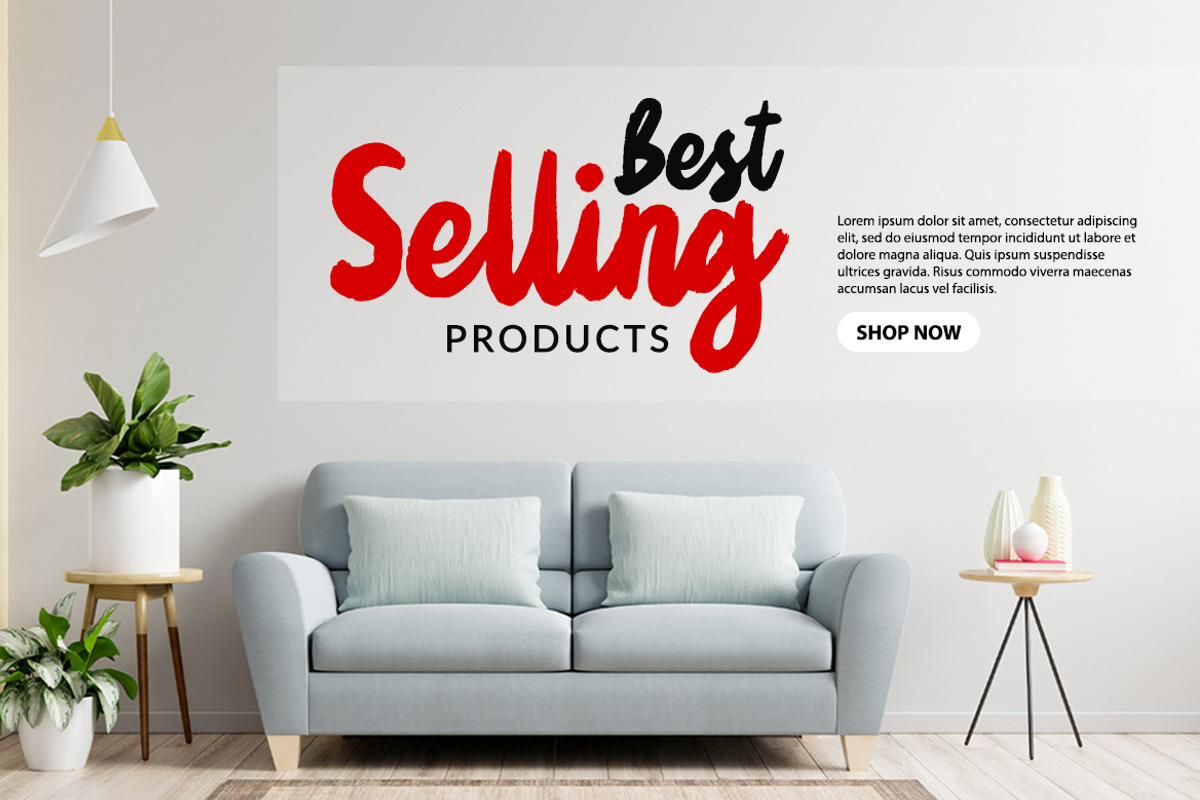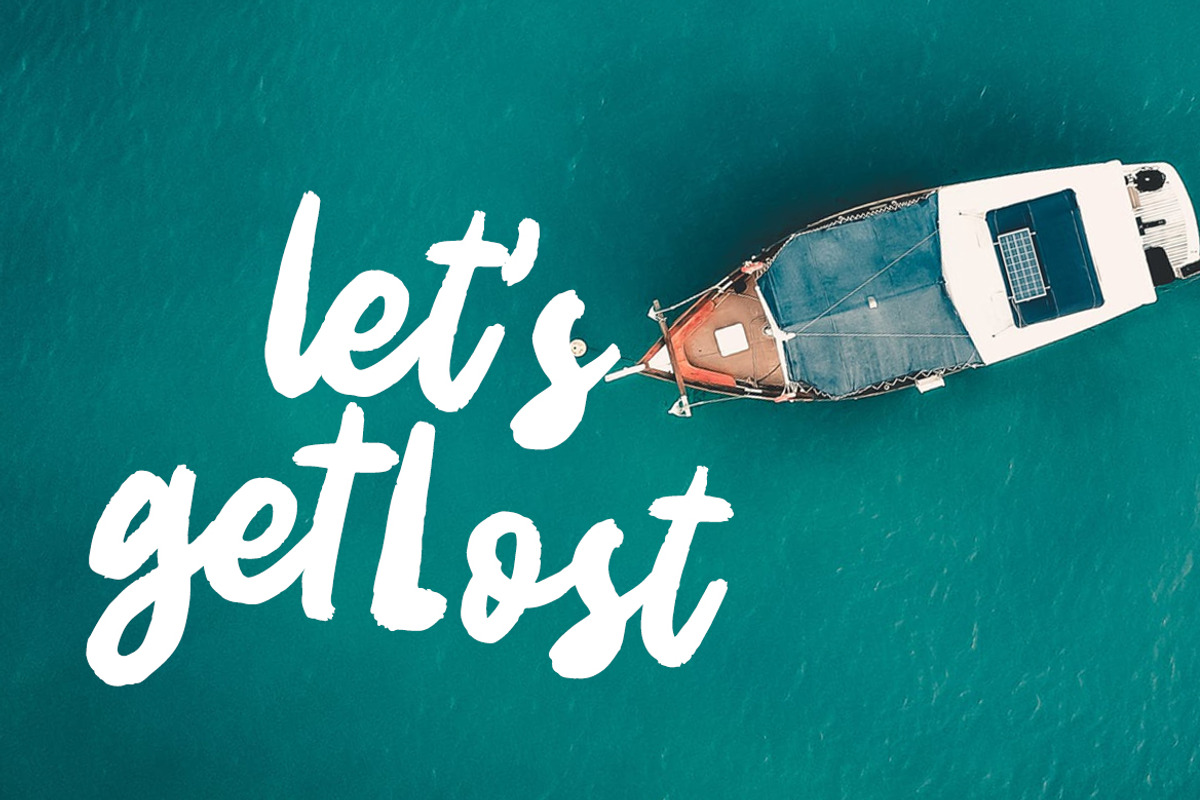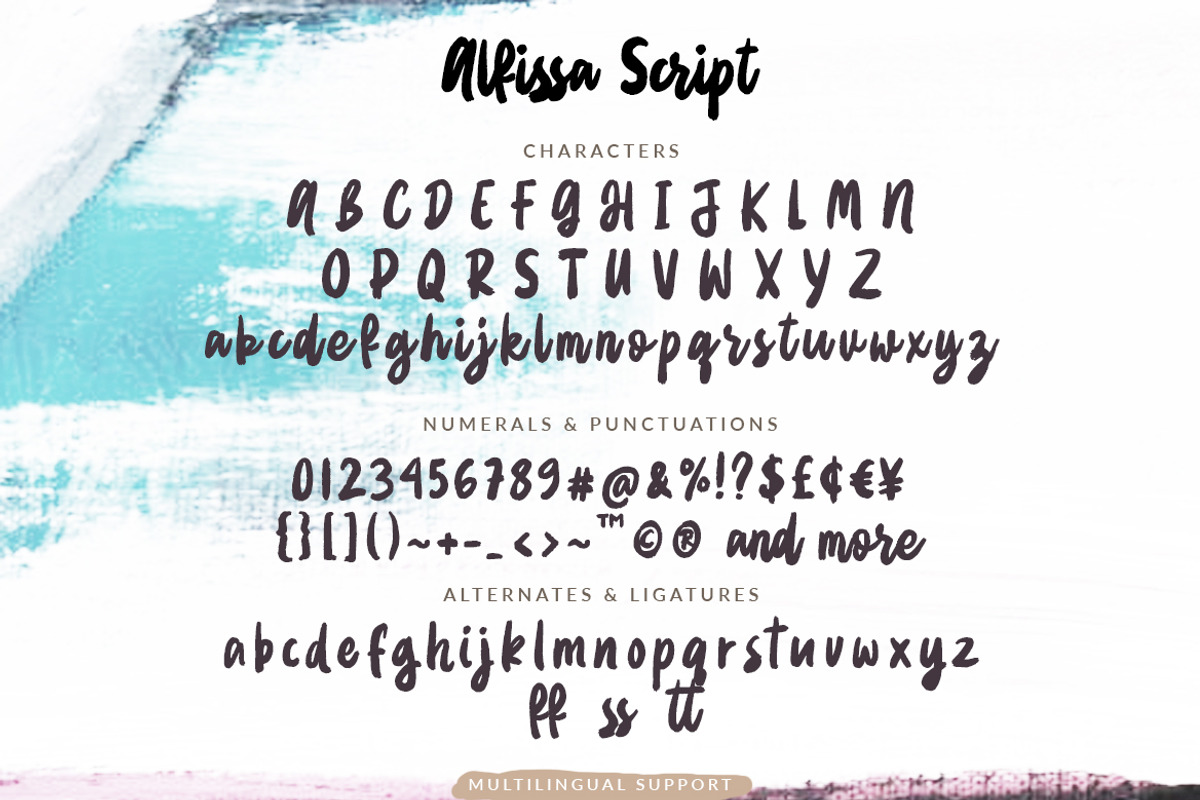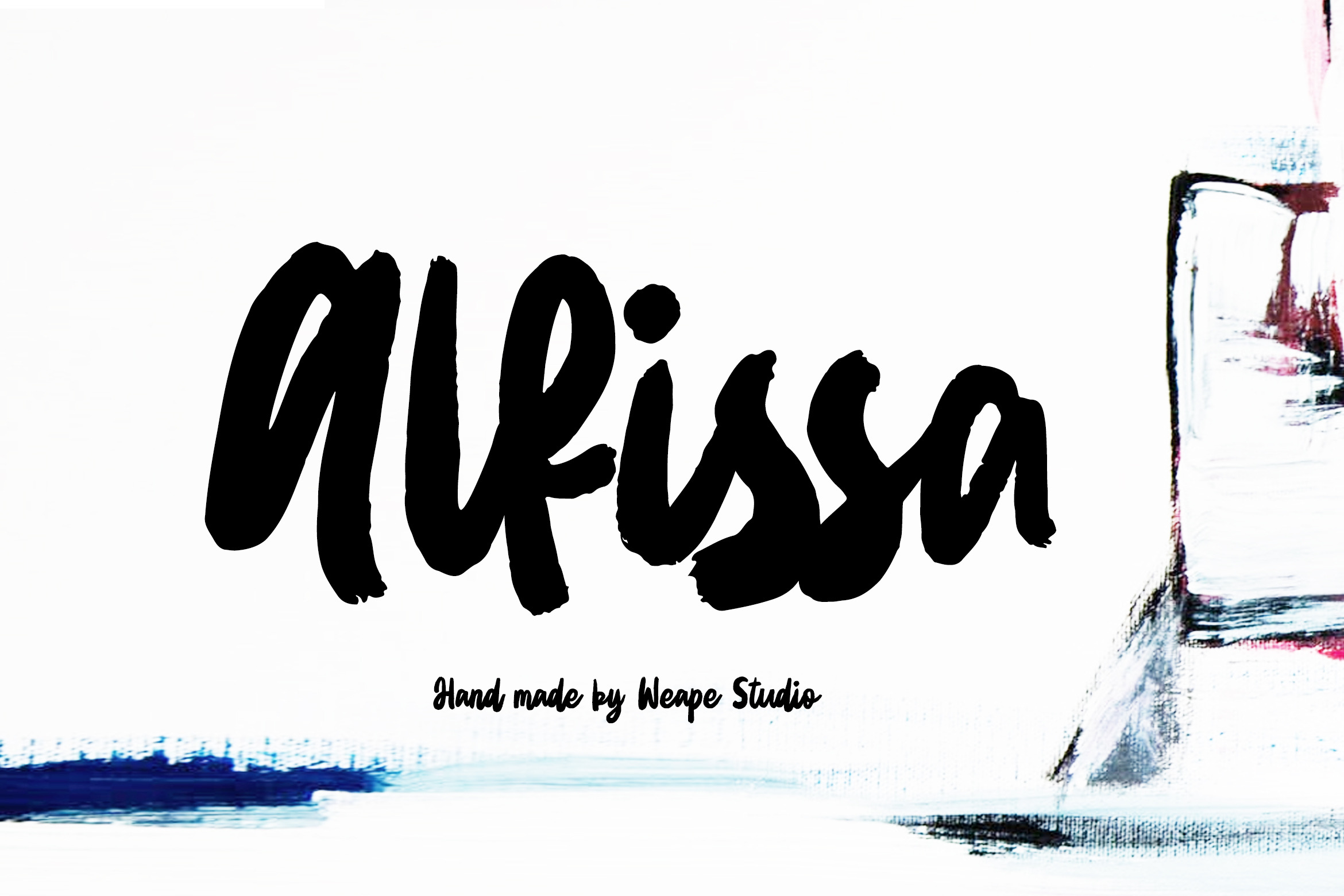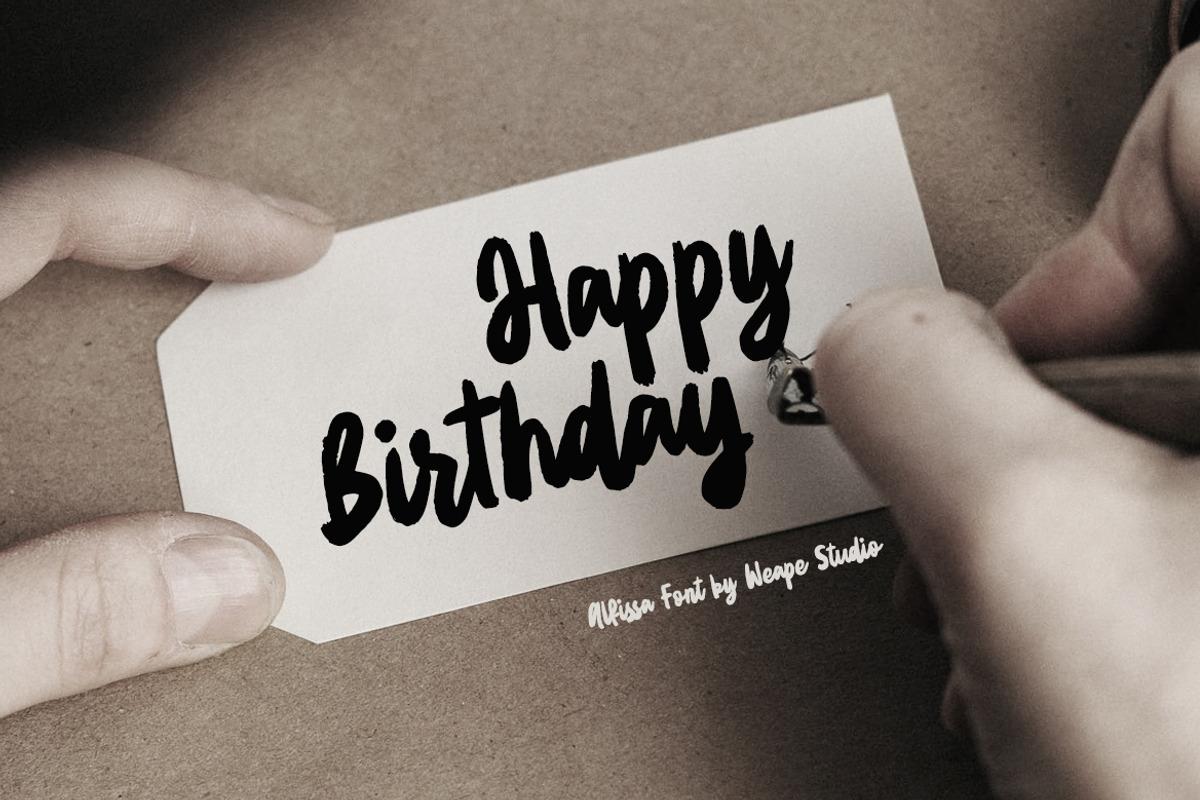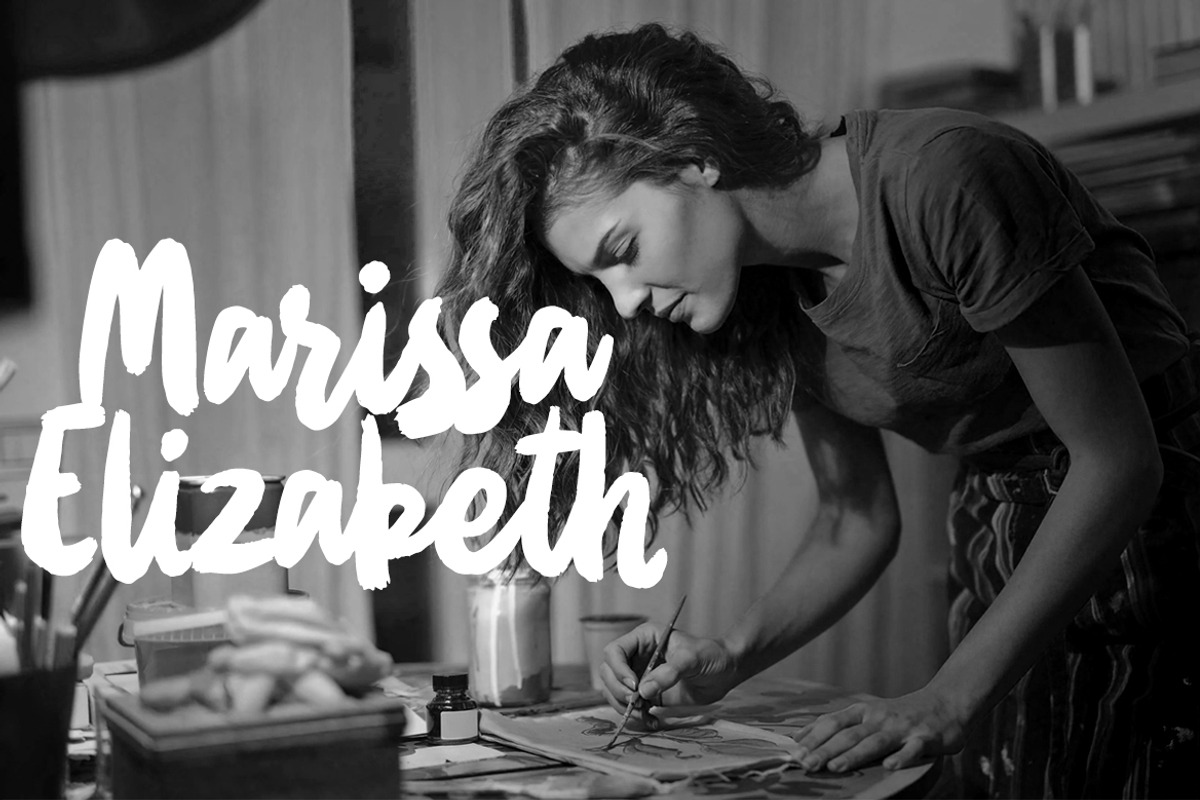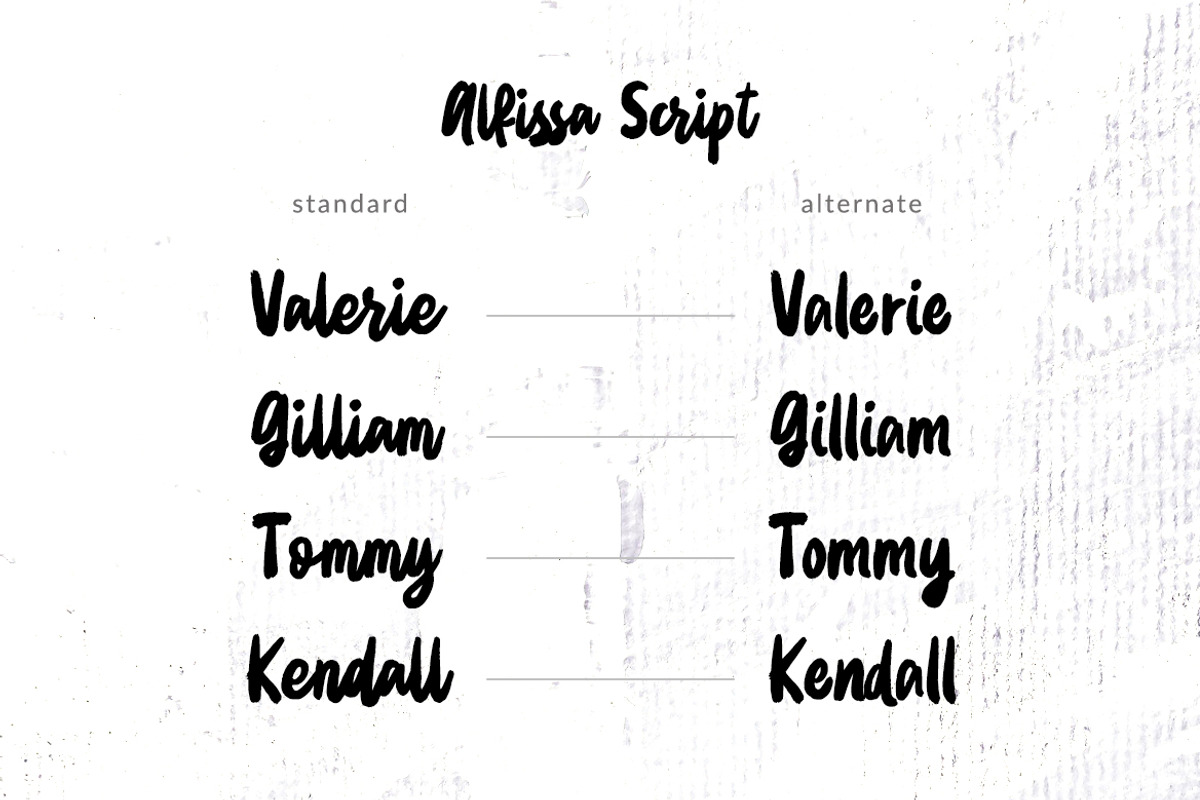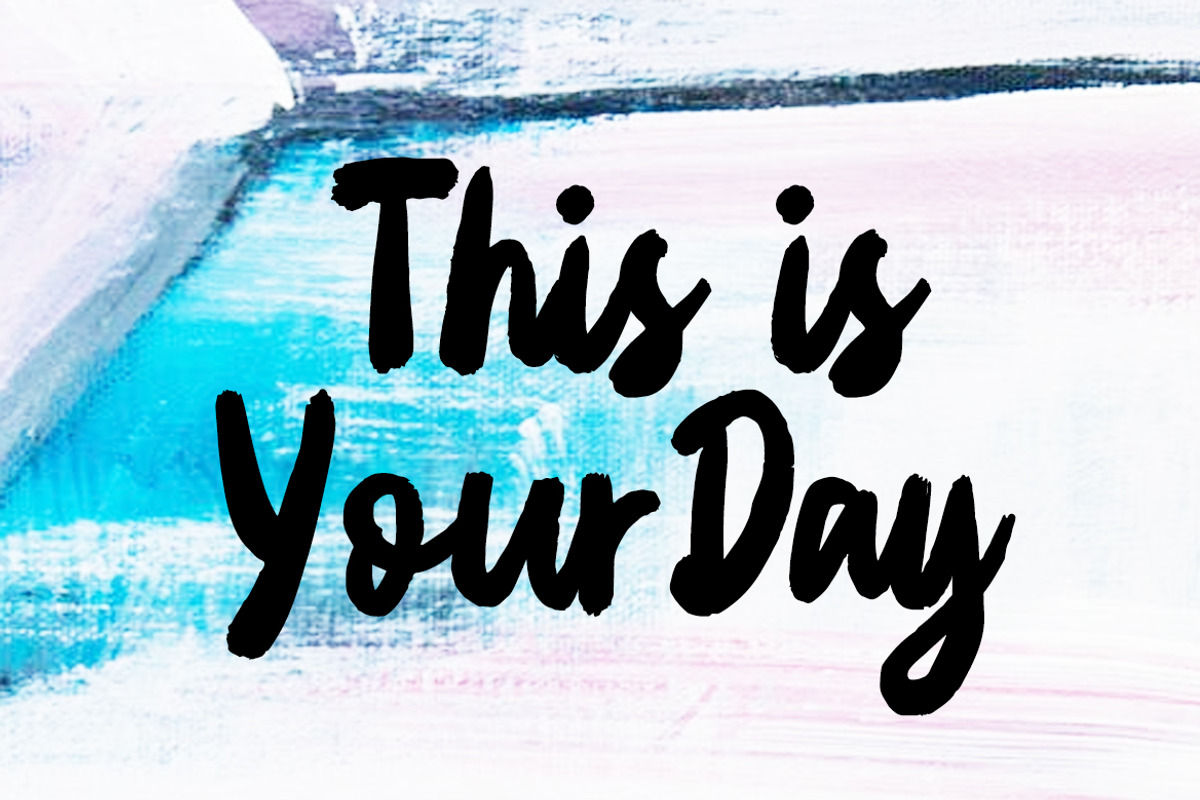
Alfissa - Brush Font
Introducing Alfissa - Brush Font, script with a natural rough dry brush strokes, and the stroke of hand quickly. You can use and enjoy Alfissa, for anything from promotional material and handwritten quotes, to product packaging, merchandise and branding projects
And this font perfect for signature, branding, wedding, fashion, photography, title, poster, social media, ad banner, book cover, packaging, handwritten quotes, greeting cards and advertising. You can create more easily with alternatives to each letter and make it as if you wrote it yourself.
All fonts containing upper & lowercase with alternate characters, numerals, and a large range of punctuation. With otf and ttf format.